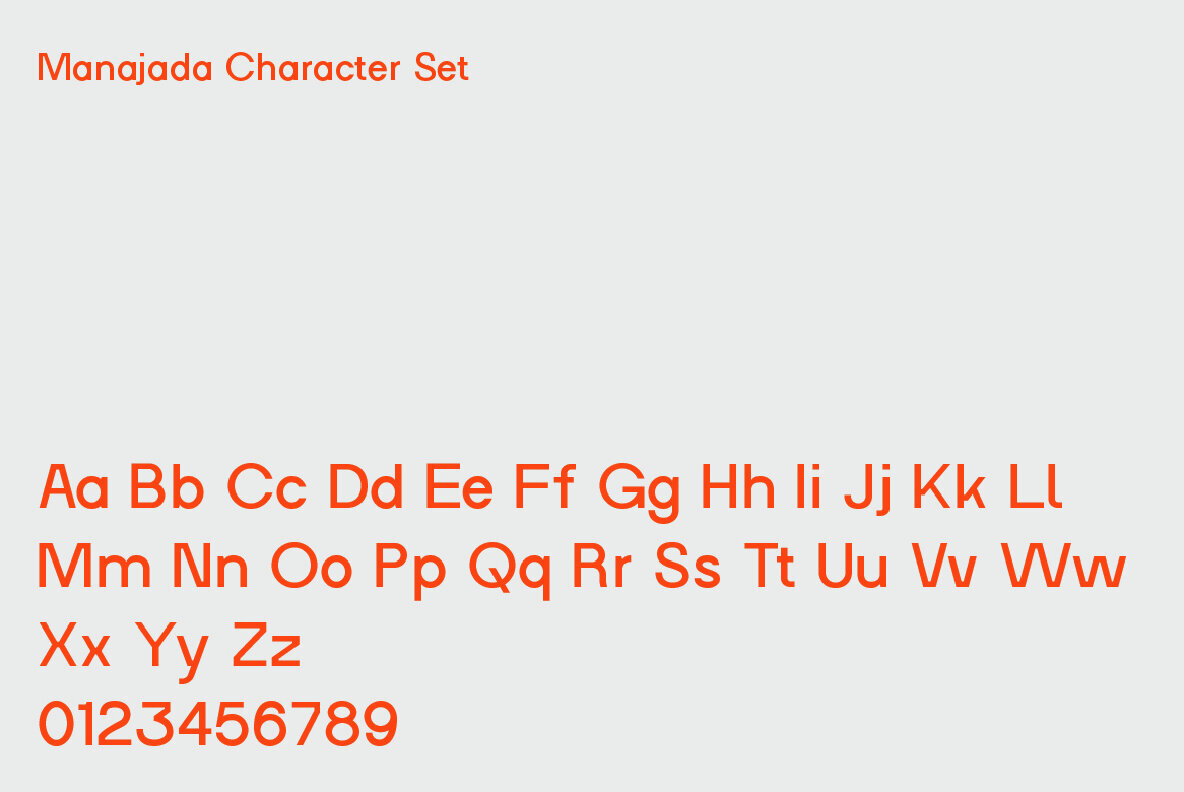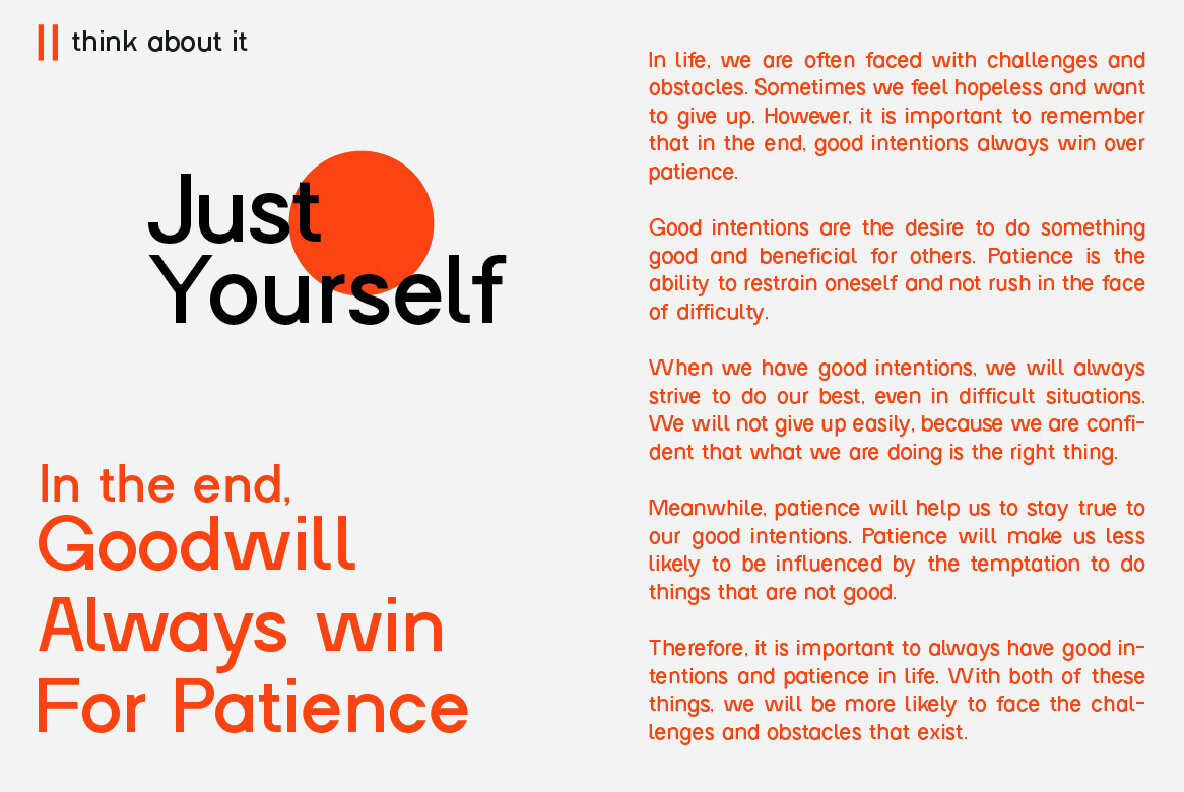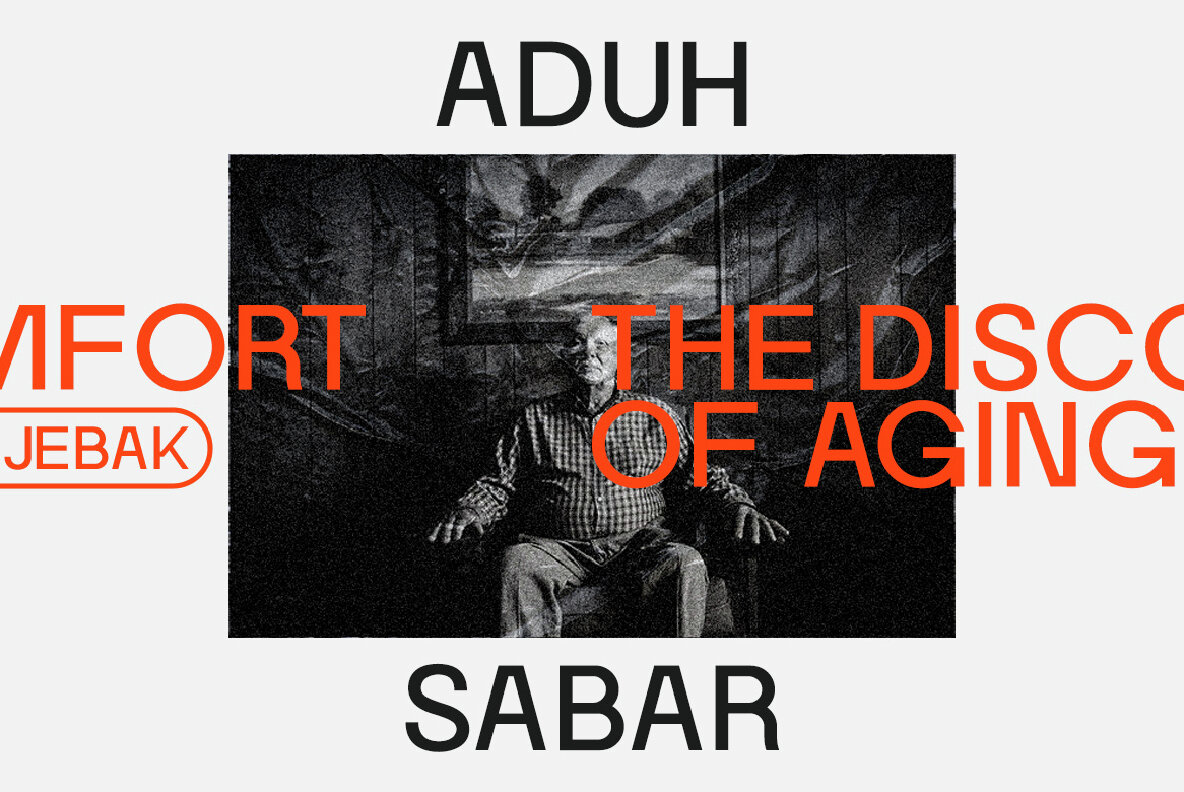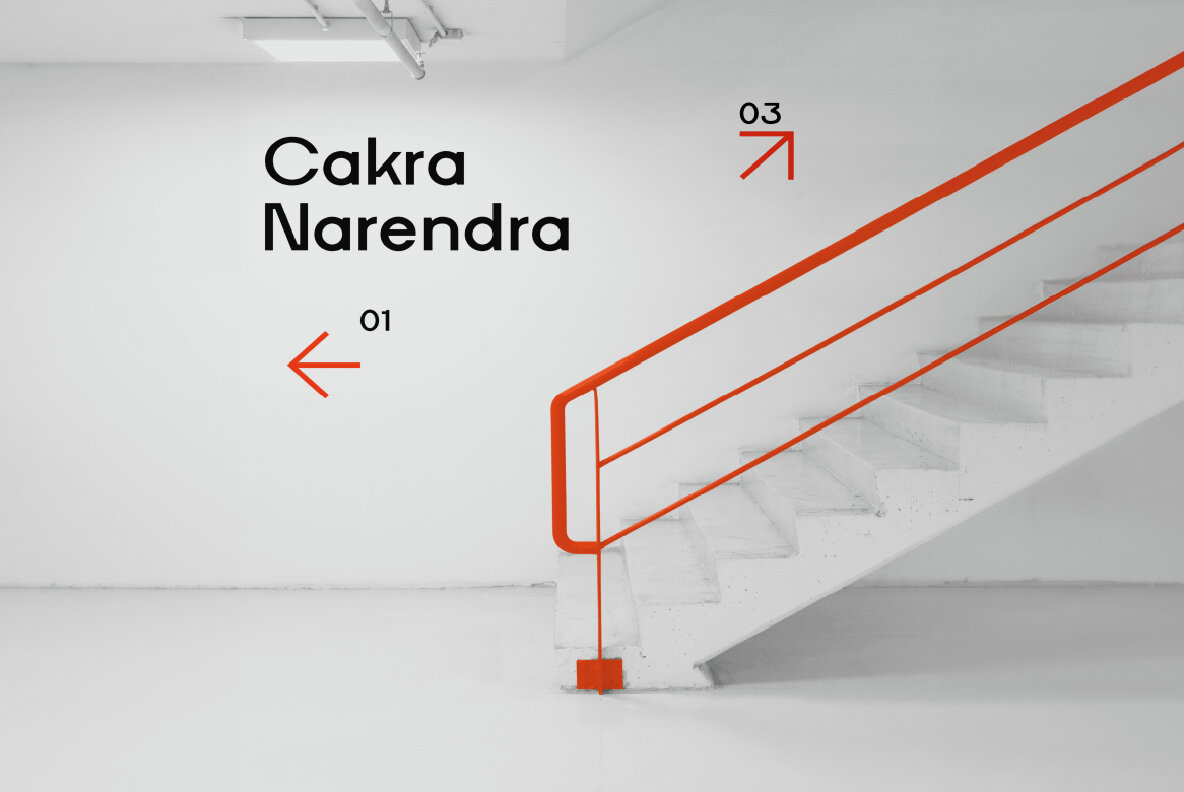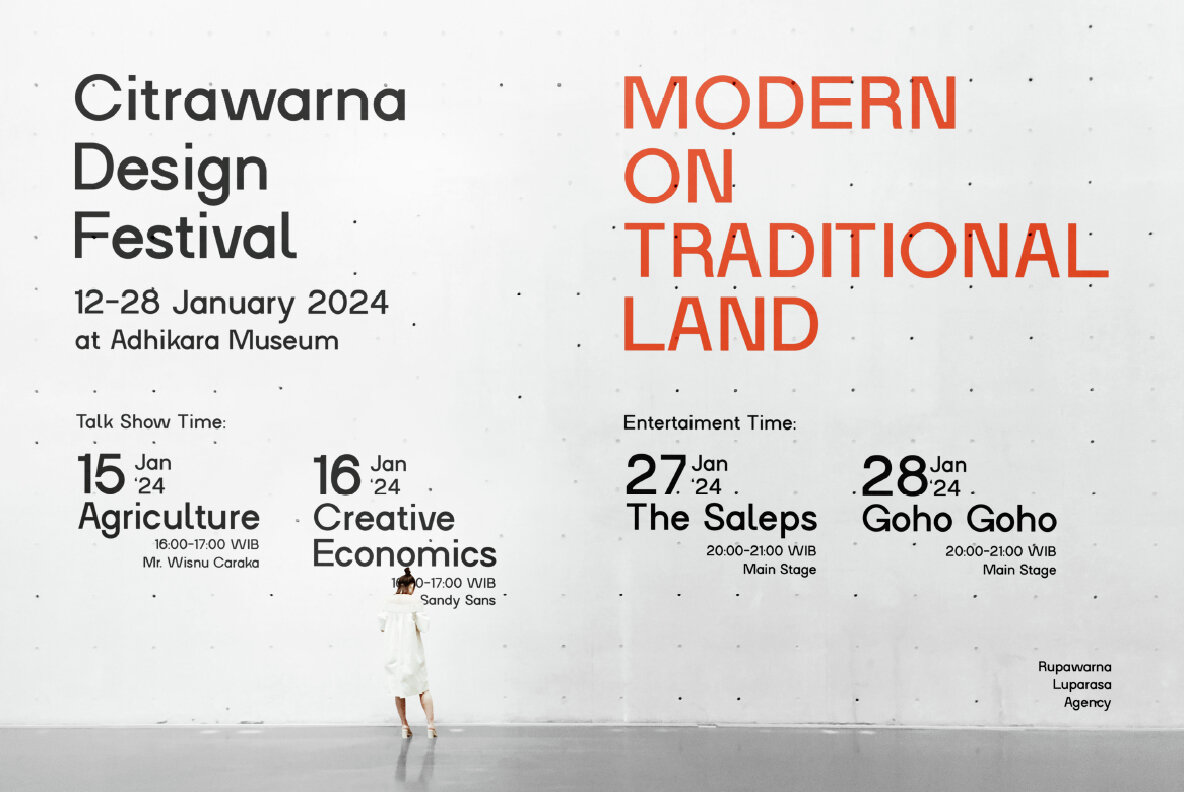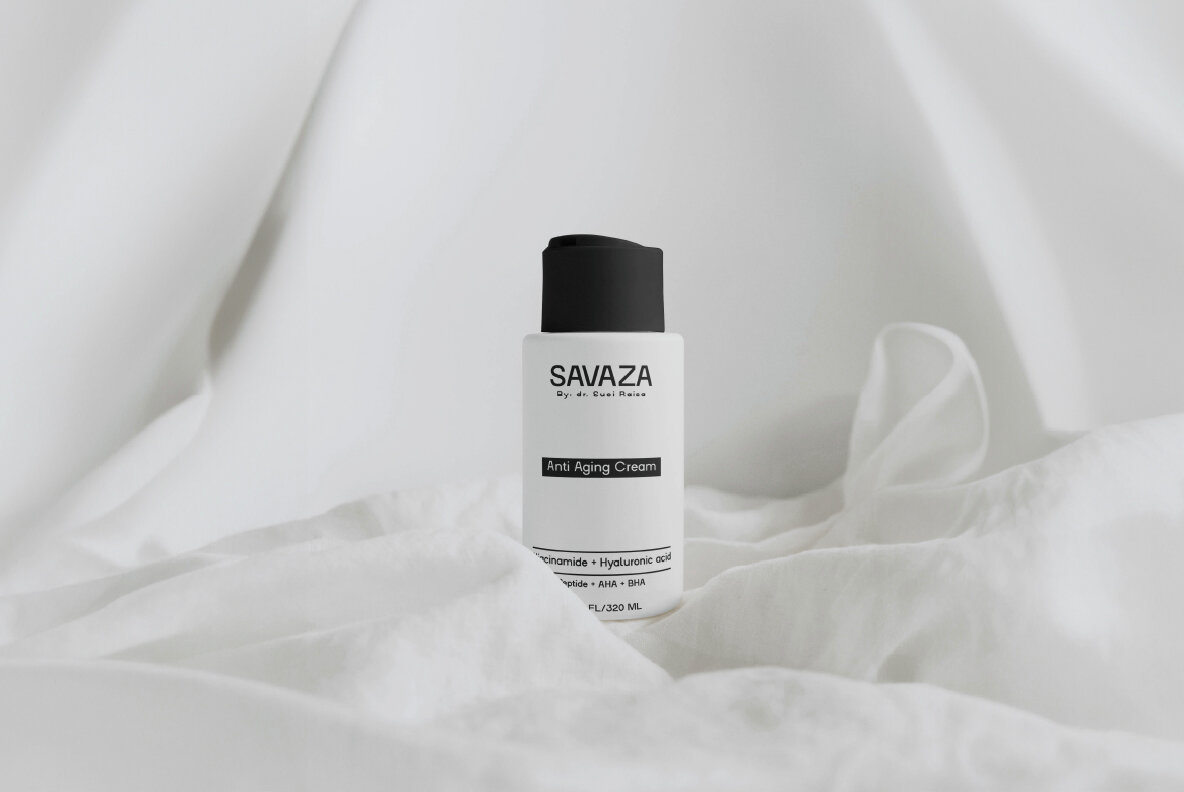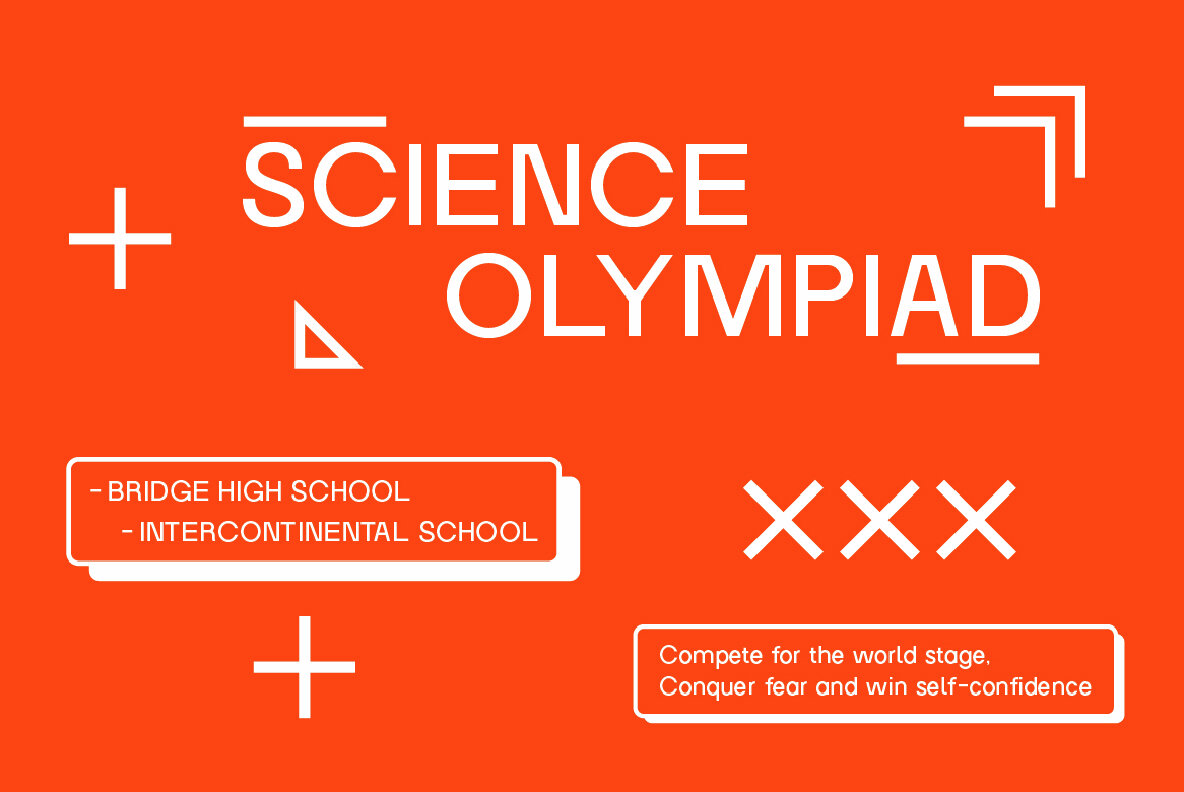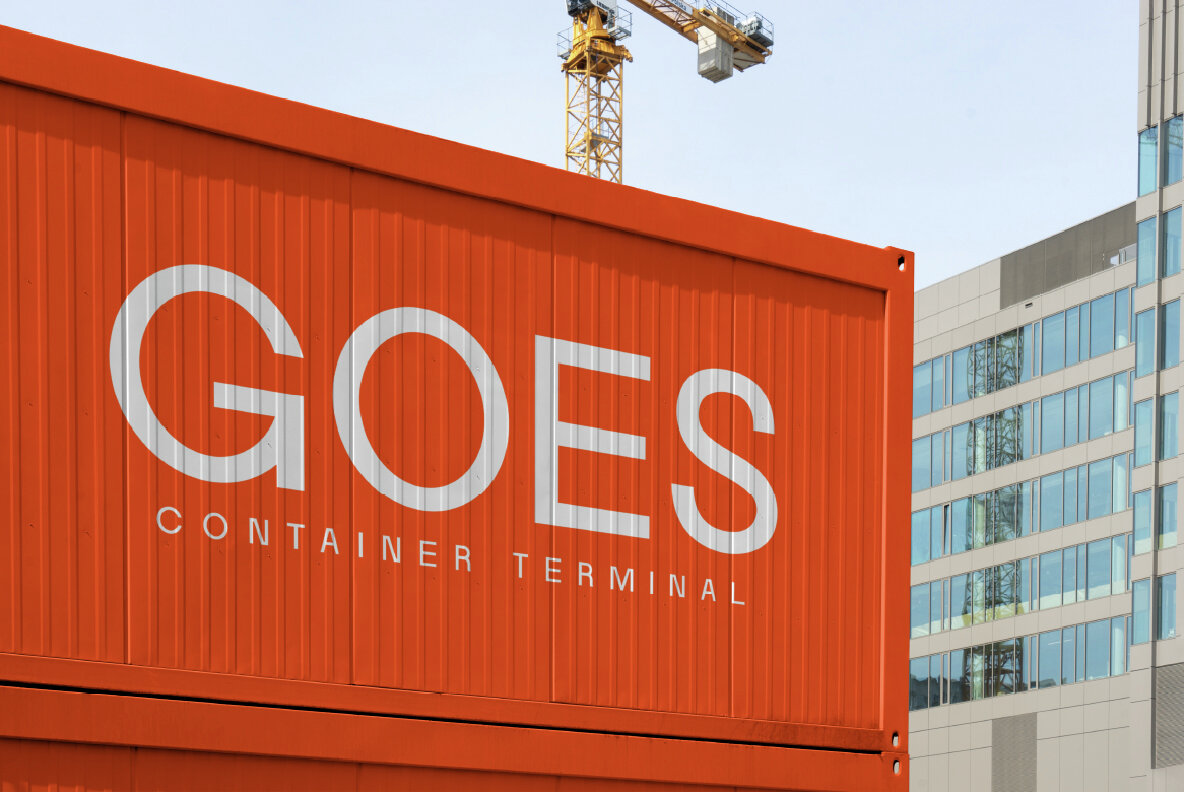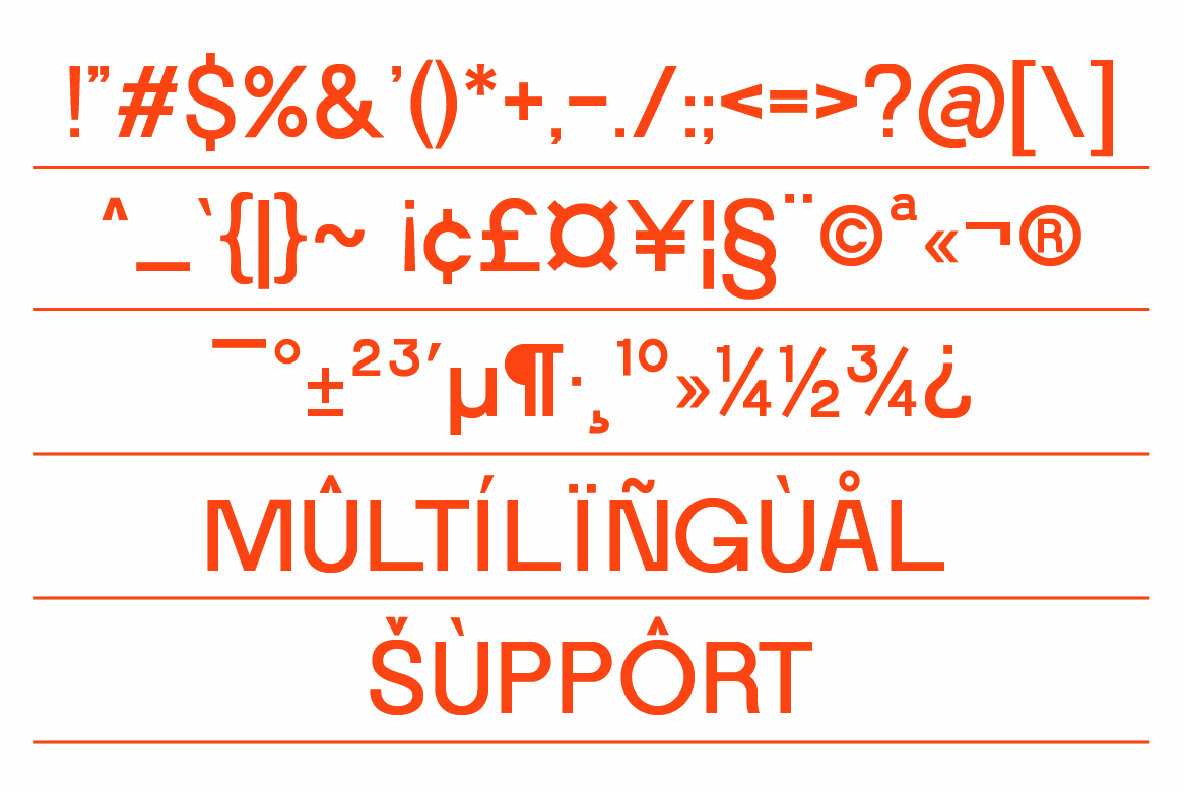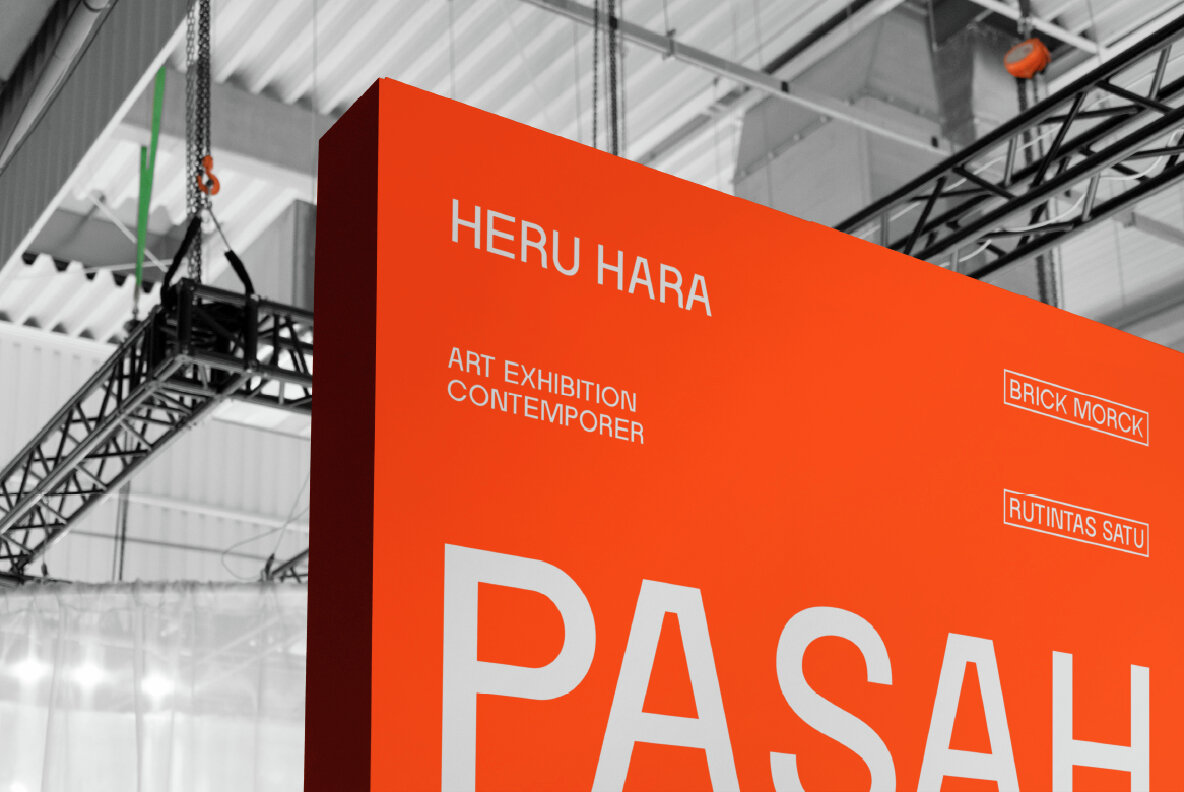
Manajada is a striking display font that combines a clean, modern aesthetic with a touch of unconventional elegance. As a sans-serif typeface, this font adheres to the principles of simplicity and clarity, but boldly deviates from traditional norms by subtly elongating and deviating slightly from the strict discipline of conventional sans-serif design. Inspired by a deliberate play of proportions, Manajada introduces subtle lengthening in certain areas, creating a distinctive and memorable visual impact. This departure from the conventional sans-serif structure adds unique character and flair to the font, making it stand out in the world of display typography. Crafted with meticulous attention to detail and passion for design, Manajada exudes confidence and purpose. The font's intentional deviation from the norm is a testament to the creator's dedication and love for our work. This results in a typeface that not only challenges the boundaries of conventional sans-serif but also takes on a confident and bold stance. Its carefully considered design, combining clean lines with a hint of rebellion, makes it the perfect choice for projects that desire a modern, confident and slightly unconventional approach to typography. This font is suitable for various purposes, such as logos, branding, and graphic design. Here are some examples of using the Manajada font: Include: Thank you for coming to my shop and enjoying other fonts.